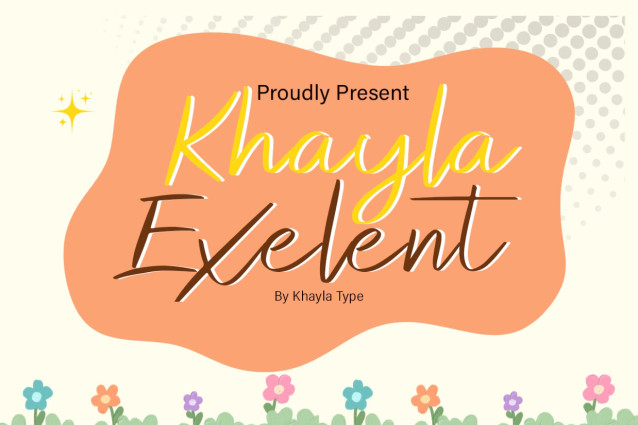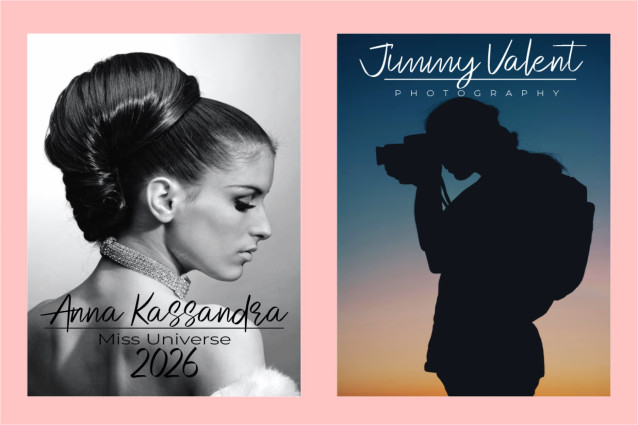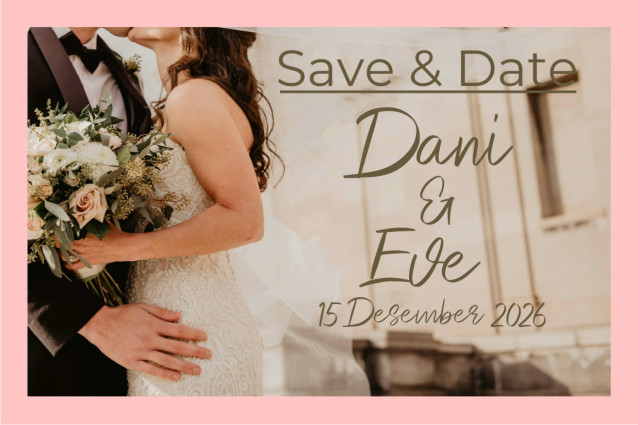
Khayla Exelent Font
Khayla Exelent is an elegant handwritten script font with a relaxed, organic flow. Its light stroke weight, subtle variation in thickness, and gently sloped posture give it a personal, airy quality that feels both modern and intimate.
Natural fits include wedding stationery, save-the-date cards, photography watermarks, thank you notes, and boutique cosmetics packaging. It is best suited for headlines, signature-style logos, and display layouts where its delicate, flowing connections can be fully appreciated.